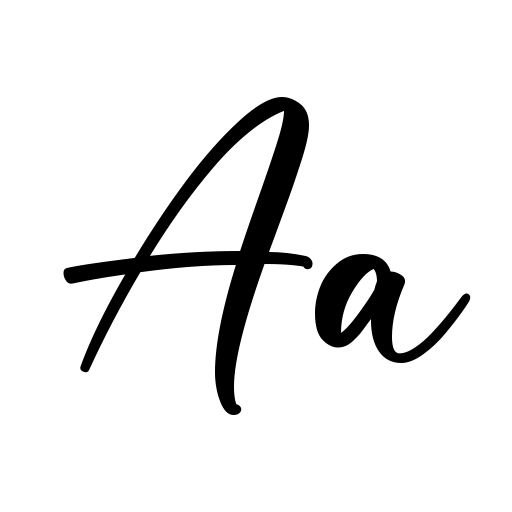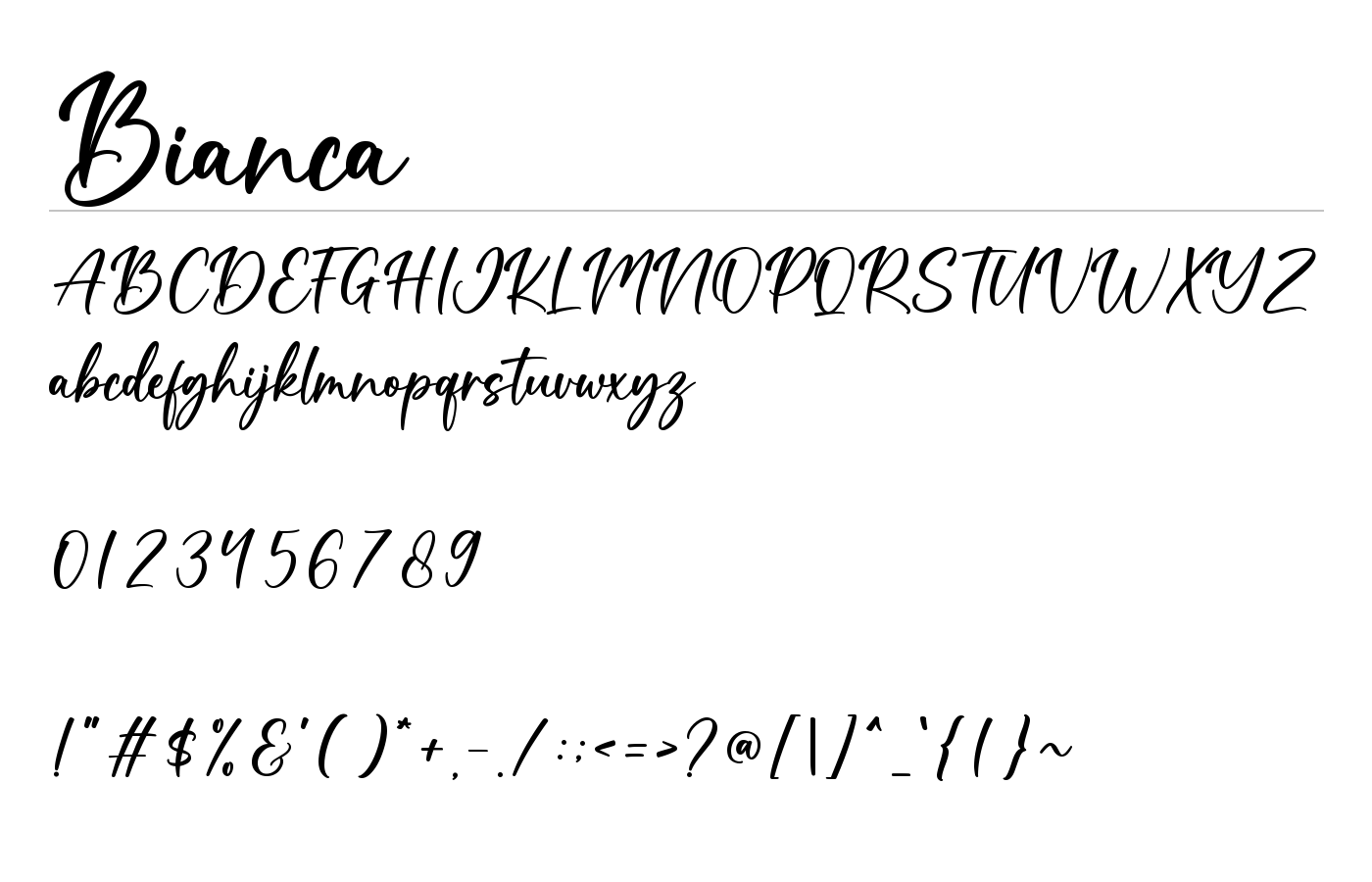
Bianca is a graceful script font with a smooth, flowing style that combines elegance with a touch of modern playfulness. Its moderate contrast strokes and natural, handwritten feel make it ideal for branding, invitations, and stylish editorial use, adding a warm and personal touch to any design. This font works beautifully where a sophisticated yet approachable aesthetic is desired.
Bianca Font
About Bianca Font